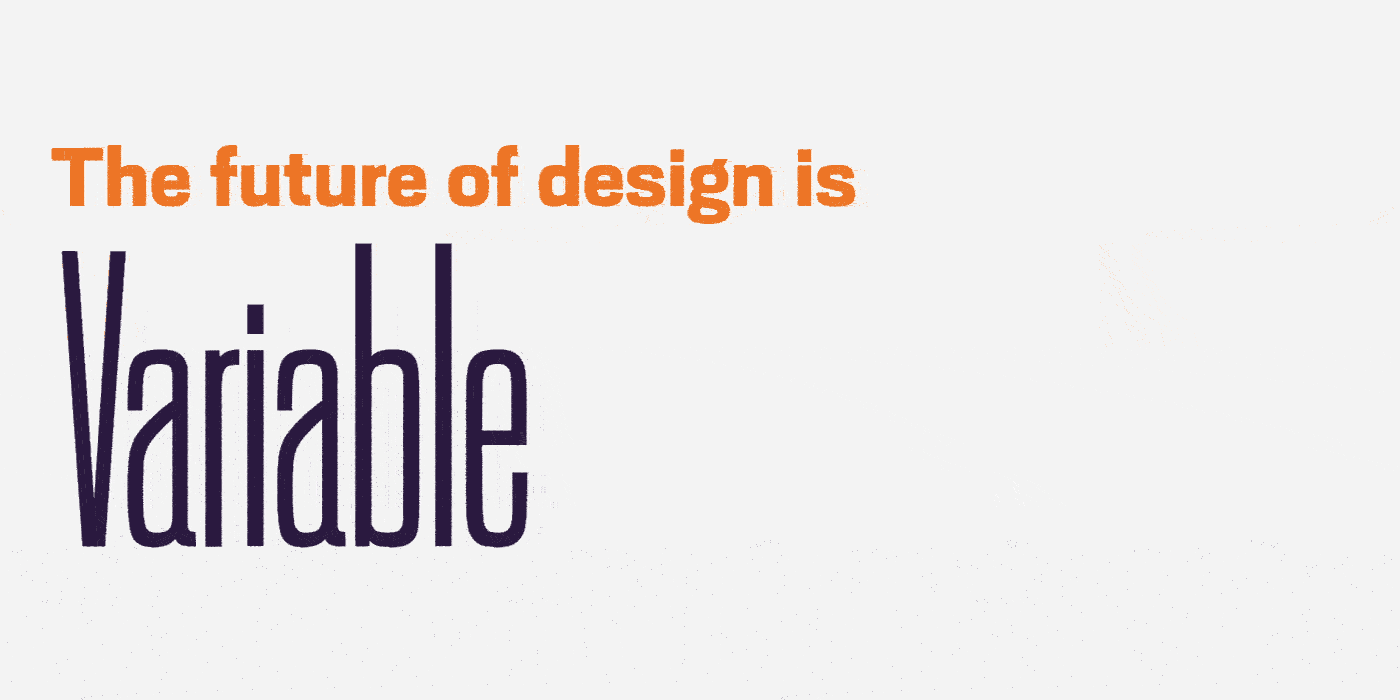
In January, we set out to explore the world of variable fonts from a variety of perspectives. Through a series of tutorials, case studies, interviews, and stories, we’ve learned what variable fonts are, what they can do, and how to use them.
We learned from Bas Jacobs at Underware how variable fonts “can transform into anything else.” Underware pushes the boundaries of our thinking by designing axes like “push” and “time” that allow for fascinating animations out-of-the-box. VFs aren’t only about getting bolder or wider; they’re about exploring “a universe of type.” Within that universe, anything is possible.
The most obvious applications of those possibilities generally fall into two categories, as summarized by Google’s Dave Crossland: “finesse and express.”
Finessing text means refining it through nuanced typography. It’s something that has historically been limited to print design, when the designer knows the paper quality, audience, ink, and so on. Web and app design lacked that fine-tuning largely because it lacked the typographic tools to accomplish it. That is, until variable fonts came along.
Jason Pamenthal used VF when redesigning the State of Rhode Island’s web system to increase speed and accessibility. He wrote, “If there’s one thing last year made exceedingly clear, it’s that government services must be accessible to all, no matter what.” Starting with the state’s COVID information site, the improved system has expanded to include dozens of government websites.
Google, whose user-base is among the largest in history, needs their apps and sites to be readable for every kind of person on every kind of device. To achieve this, they asked Font Bureau’s David Berlow to create Roboto Flex, a variable font that could adapt to its surroundings for maximum legibility and consistency.
Expressing with text, on the other hand, pursues impact and memorability. Advertising, headlines, branding, and anything else that needs to draw attention could be labeled expression. Before variable fonts, designers and companies were locked into static typefaces (often very common ones, at that). Now, with VF, using the same typeface as someone else doesn’t mean having the same style as someone else.
For companies that want a completely unique way to communicate nuanced messages with a range of users, the decision to commission custom type is smarter than ever. No brand has one voice or one audience; moreover, projects like Polymode Sans by XYZ Type and Canal Brasil by Plau and Tátil show what is possible when a variable font’s axes are designed to accommodate the range of a brand’s voice.
To implement variable fonts, designers have many options. Applications like Adobe Illustrator support VF (you might have one installed, and not even know it) for making graphics and designing branding. Meanwhile, it’s easy to implement VF using CSS. If that’s too complicated, platforms like Typetura make it even easier.